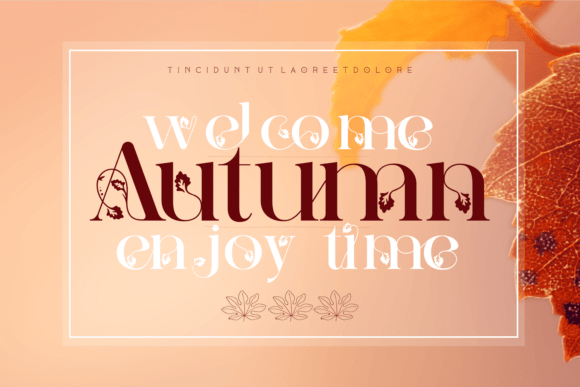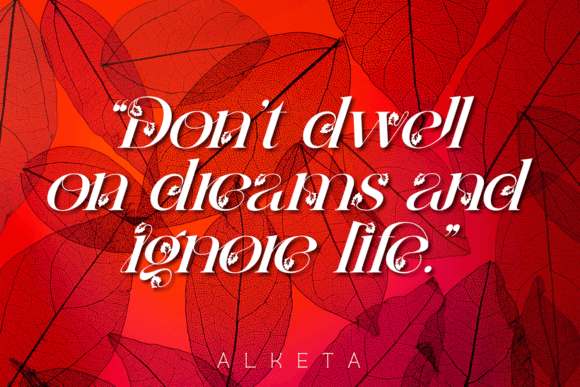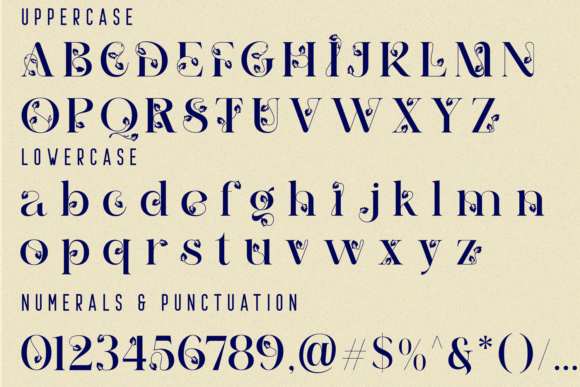
Alketa Nature is a delicate floral font with flowers and leaves, that features a nature concept with leaf swashes. It’s an elegant and feminine font suitable for all kinds of headlines and decorative purposes. Get inspired by its authentic feel and use it to create beautiful posters, product packaging, or logos.
Alketa Nature Font